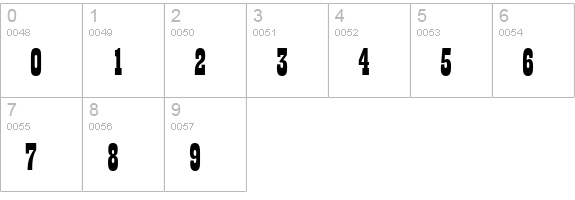
Prescott-Regular is the standard, neutral variant in the Prescott typeface family \xE2\x80\x94 well suited to general body text, paragraphs, and standard typographic work.
Prescott-Regular is a versatile and stylish font that exudes elegance and sophistication. With its clean lines and classic design, this typeface is perfect for a wide range of projects, from branding to editorial design. The timeless appeal of Prescott-Regular makes it a go-to choice for designers looking to add a touch of refinement to their work. And the best part? Prescott-Regular is completely free to download at FontsMarket.com. This means you can access this beautiful font without any cost, making it a great option for both personal and commercial projects. Don't miss out on the opportunity to enhance your designs with the timeless beauty of Prescott-Regular. Download it today and elevate your typography game!